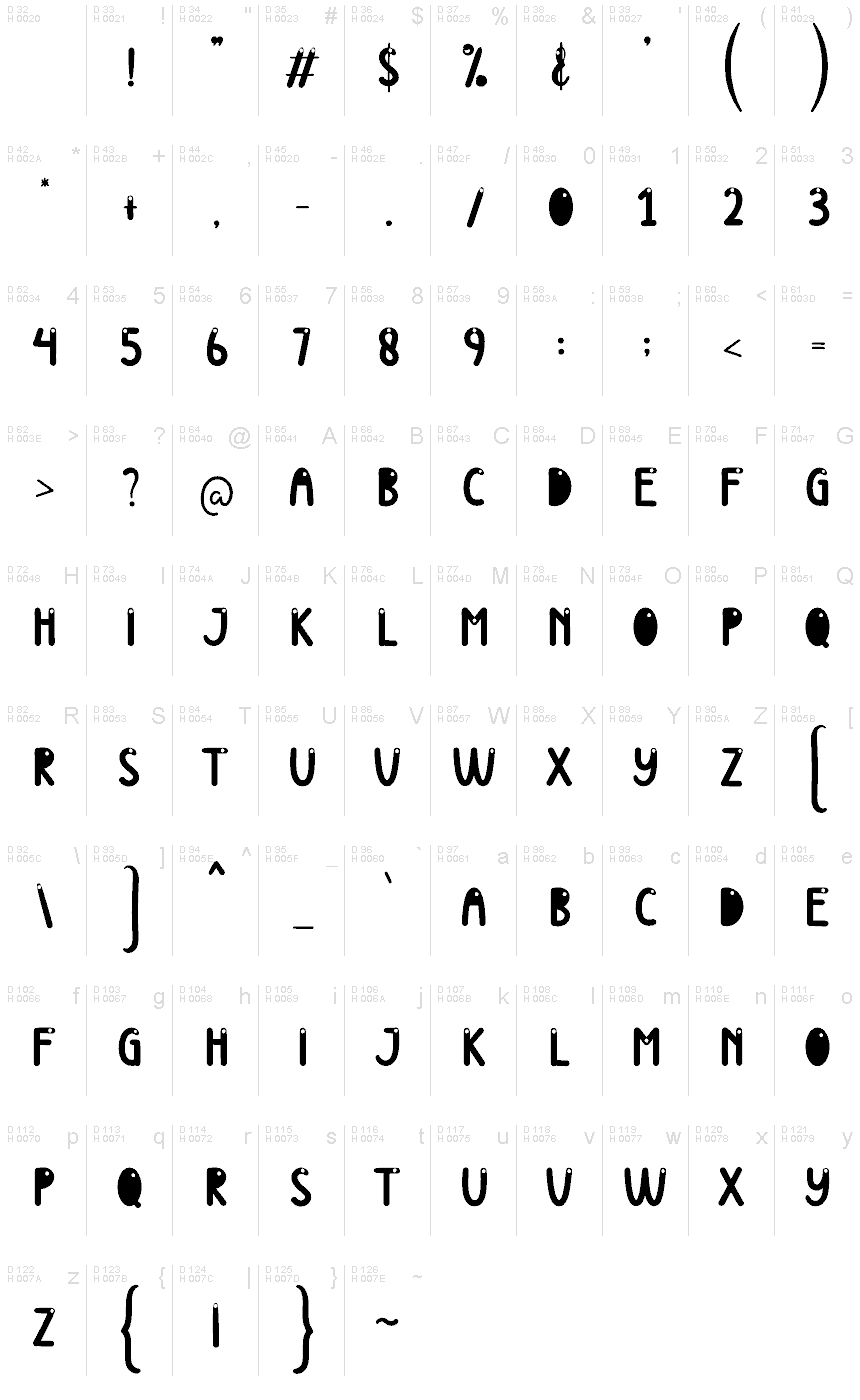
Beach Ball
Beach Ball font by Andi Moz is a cartoon-style display typeface that radiates a retro feel with its playful and casual vibe. With rounded forms and condensed width, it carries unique characteristics that make it effortlessly readable and suitable in all types of headlines. It sets the perfect mood when readers open engagement invitations, business cards, or branding projects.
Use this free display font in packaging designs or add it to posters where colors can also truly shine. Use it for digital artwork or typography art as well as t-shirts or other apparel items. Finally, Beach Ball will show its wonderful potential on comics, game titles, visually printed ads, TV headlines, and video covers.